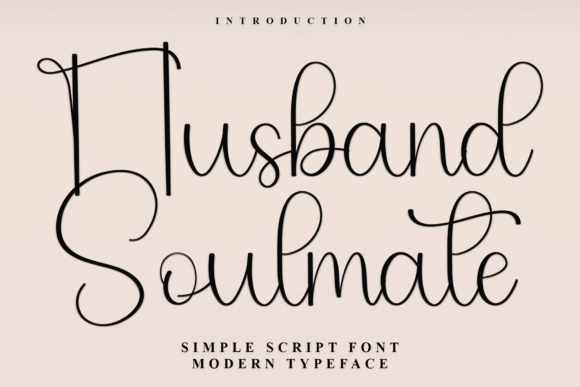
When Words Speak Volume
There’s something special about the moment when you’re brainstorming ideas with your partner, and you both stumble upon the perfect phrase to capture the essence of your project. The excitement is palpable, and you can’t wait to bring it to life. For many designers, this moment is all about finding the right font to convey the tone and personality of their creation.
Enter the Husband Soulmate Font, a delightful casual font that exudes warmth and friendliness. With its playful, round strokes, this font is perfect for personal projects, invitations, and social media graphics. Its charming, hand-drawn aesthetic adds a unique touch to any design, making it a valuable addition to any designer’s toolkit.
Whether you’re a seasoned pro or just starting out, the Husband Soulmate Font is sure to bring a smile to your face and a touch of personality to your designs.
Husband Soulmate Font Key Features
- Unique Characteristics: Husband Soulmate Font features a unique blend of elegant and playful elements, making it perfect for romantic and wedding-related designs. The font’s curves and flourishes add a touch of sophistication and whimsy.
- Script and Connection Style: The font features a connected script style, which creates a flowing and romantic feel. The connections between letters are smooth and fluid, making it ideal for handwritten or cursive text.
Husband Soulmate Font Review
As a designer, I was excited to dive into the Husband Soulmate Font and see what it had to offer. Overall, I think it’s a unique and quirky font that could be a great addition to the right project.
- The font is highly customizable, allowing users to adjust the spacing, width, and style to suit their needs.
- The font has a distinct, hand-written feel that could add a touch of personality to a design.
- The font includes a wide range of ligatures and swashes, which can help to create a more elegant and connected look.
- The font may not be suitable for large blocks of text, as the irregularities in the font can make it difficult to read.
- The font is not as legible at smaller font sizes, which could be a limitation in certain design contexts.
- The font does not include a comprehensive character set, which may limit its use in certain languages or applications.
Overall, I think the Husband Soulmate Font is a fun and creative option for designers looking to add a touch of whimsy to their projects. However, it may not be the best choice for every design scenario.
The Husband Soulmate Font is perfect for:
Wedding invitations and decorations
Couple’s quotes and love letters
Valentine’s Day cards and gifts
Anniversary celebrations and romantic getaways